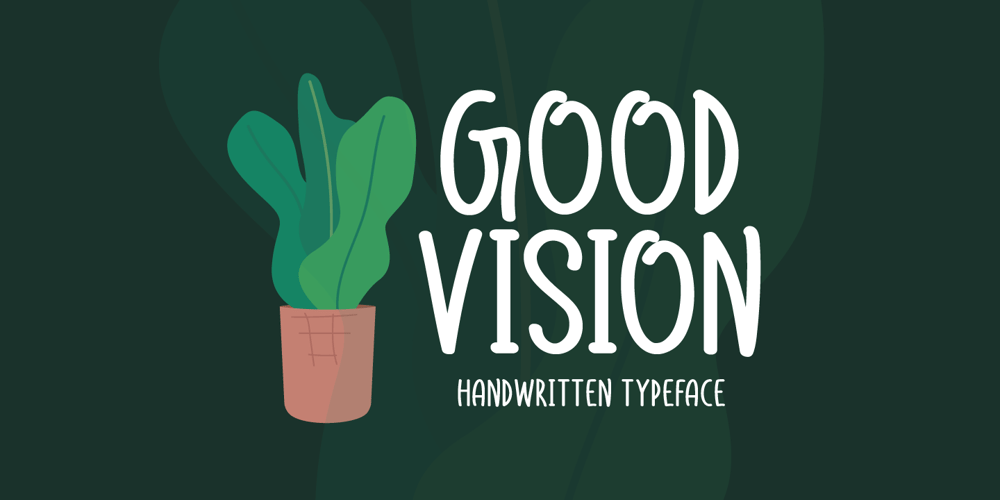
Good Vision Font Family was designed by Md Shohail Bhuian and published by Seemly Fonts. Good Vision contains 1 styles and family package options. Good Vision is an adaptable and casual handwritten font that can be used for all chalkboard quotes or teaching material! Its authentic look will add a personal and realistic feel to your designs.